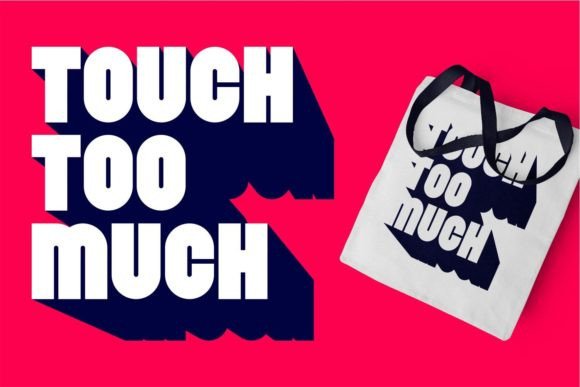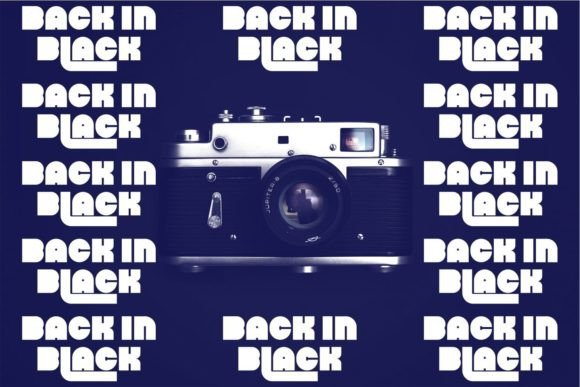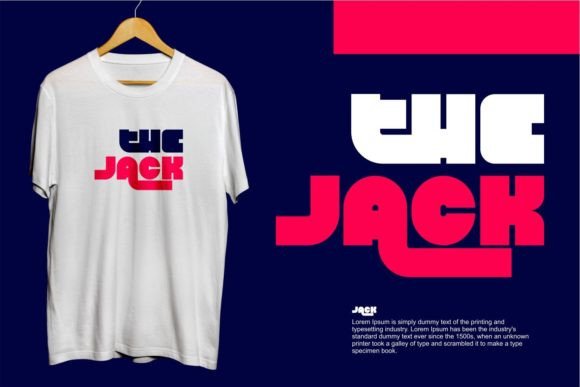
Introduction to Killor Font
Killor is a modern and bold display font with a cartoon style.
It will look so beautiful on magazine covers, greeting cards, branding materials, business cards, quotes, posters, and more .
Why Choose Killor Font?
Killor Font offers exceptional quality and versatility, making it a valuable addition to your design toolkit. Whether you’re creating for personal projects or commercial use, Killor Font delivers professional results.